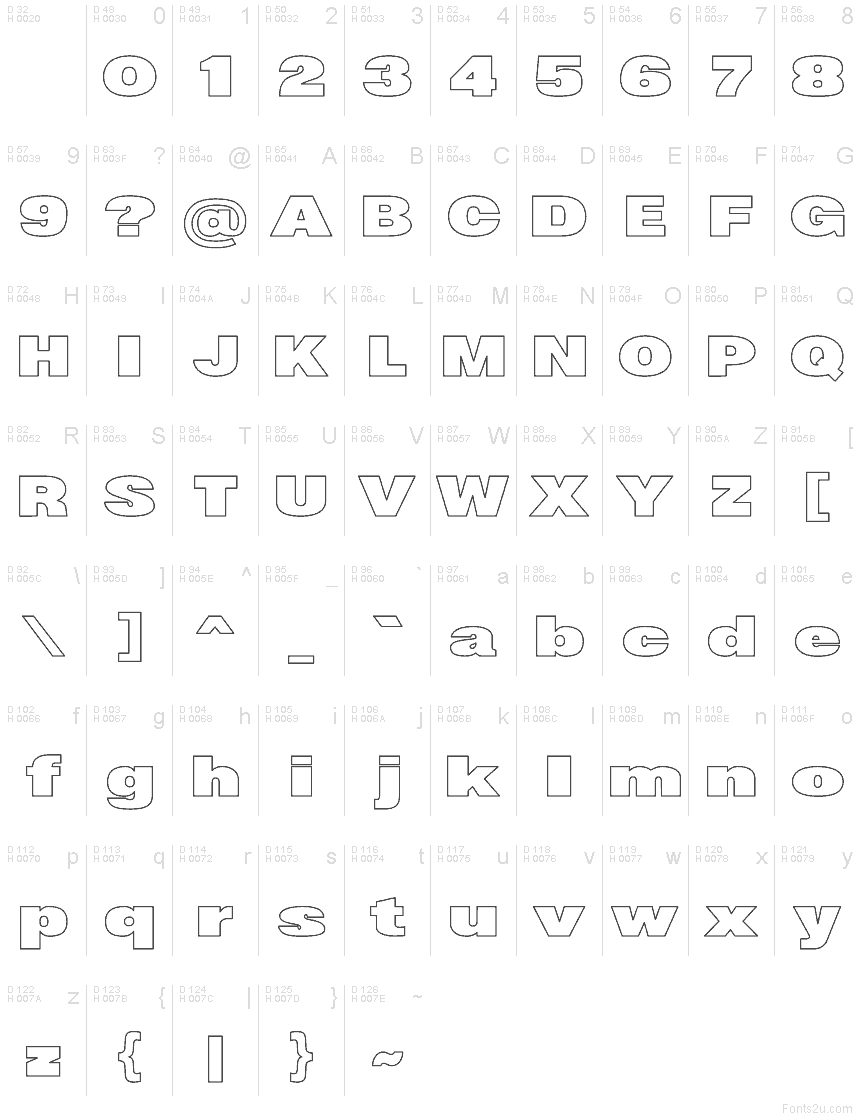
Bathur Outline
Bathur Outline font by 4RM Font is a bold, expanded sans serif typeface inspired by Brutalist design. With outlined, geometric forms and a structured appearance, it conveys an authentic and harmonious beauty. This clean, modernist-influenced font combines wide dimensions and rounded edges for a visually captivating design.
This free complex display font is highly suitable for creative uses in logotypes, architectural magazines, street wear designs, album covers, posters, stickers publications with rounded-corner graphics as well as promotions ideas touching on retro or brutalism styles.